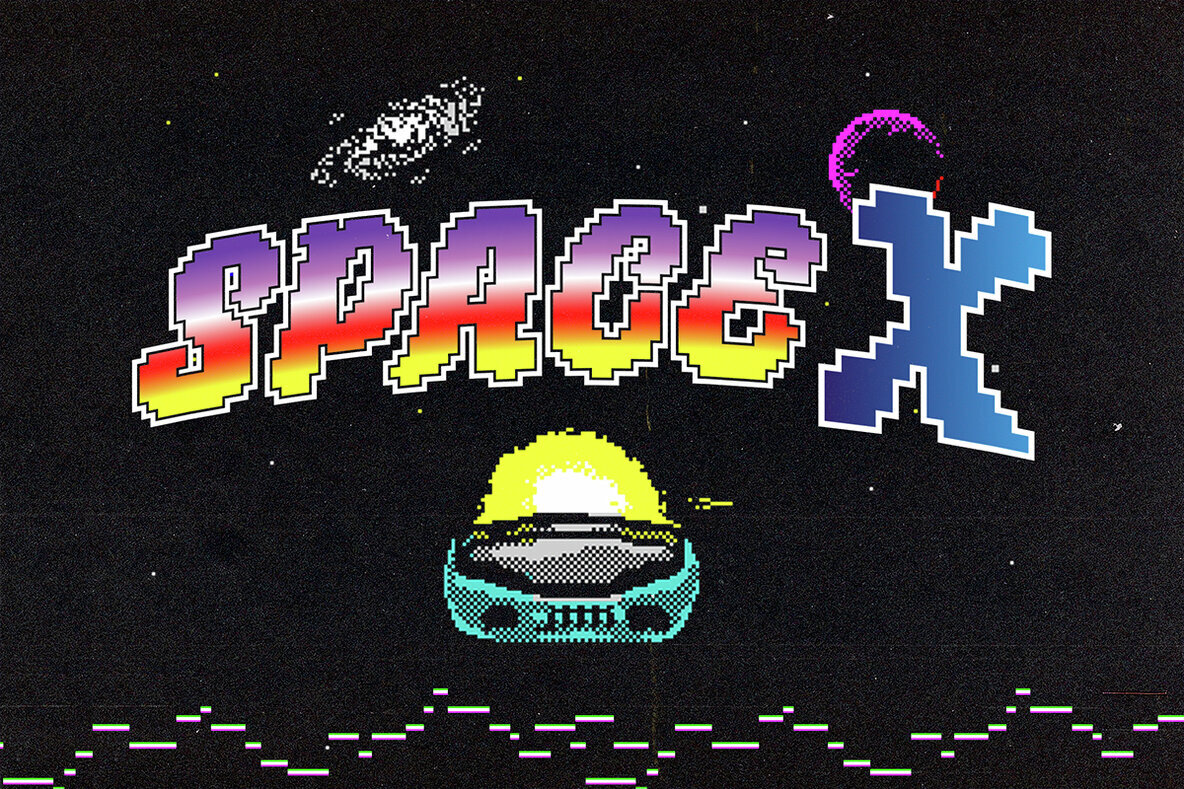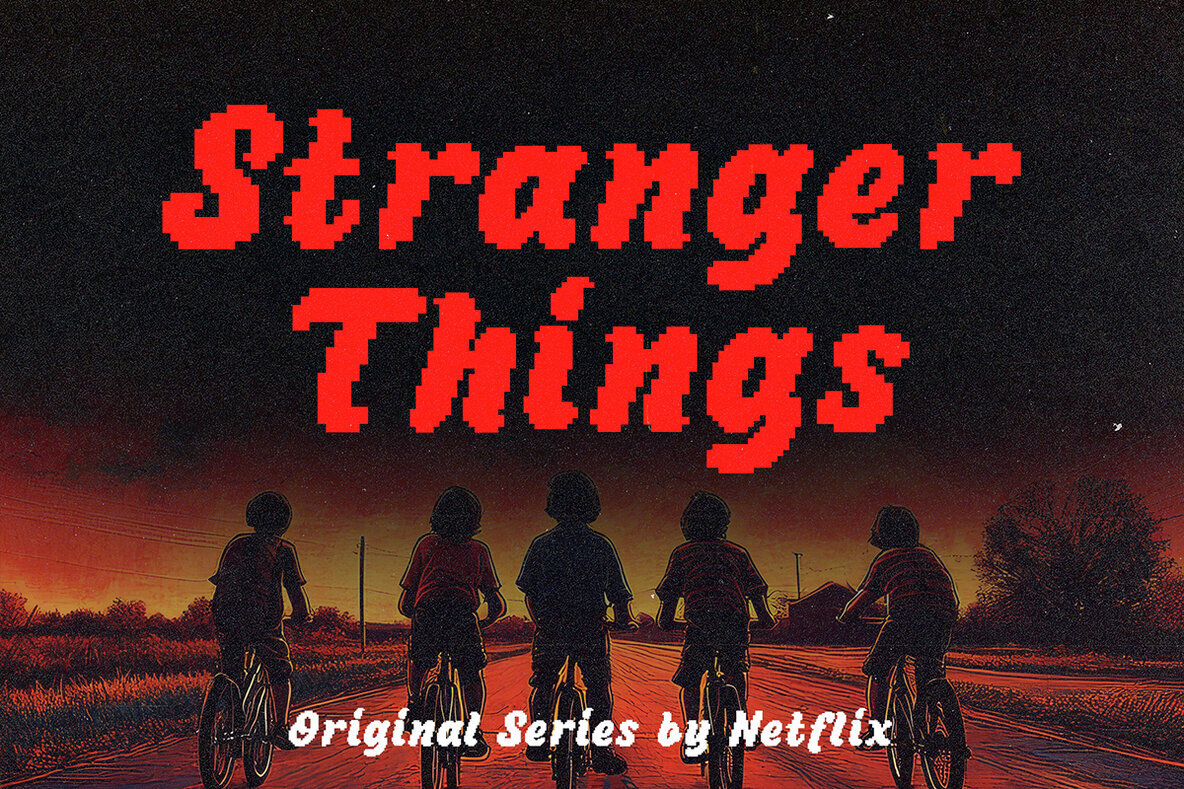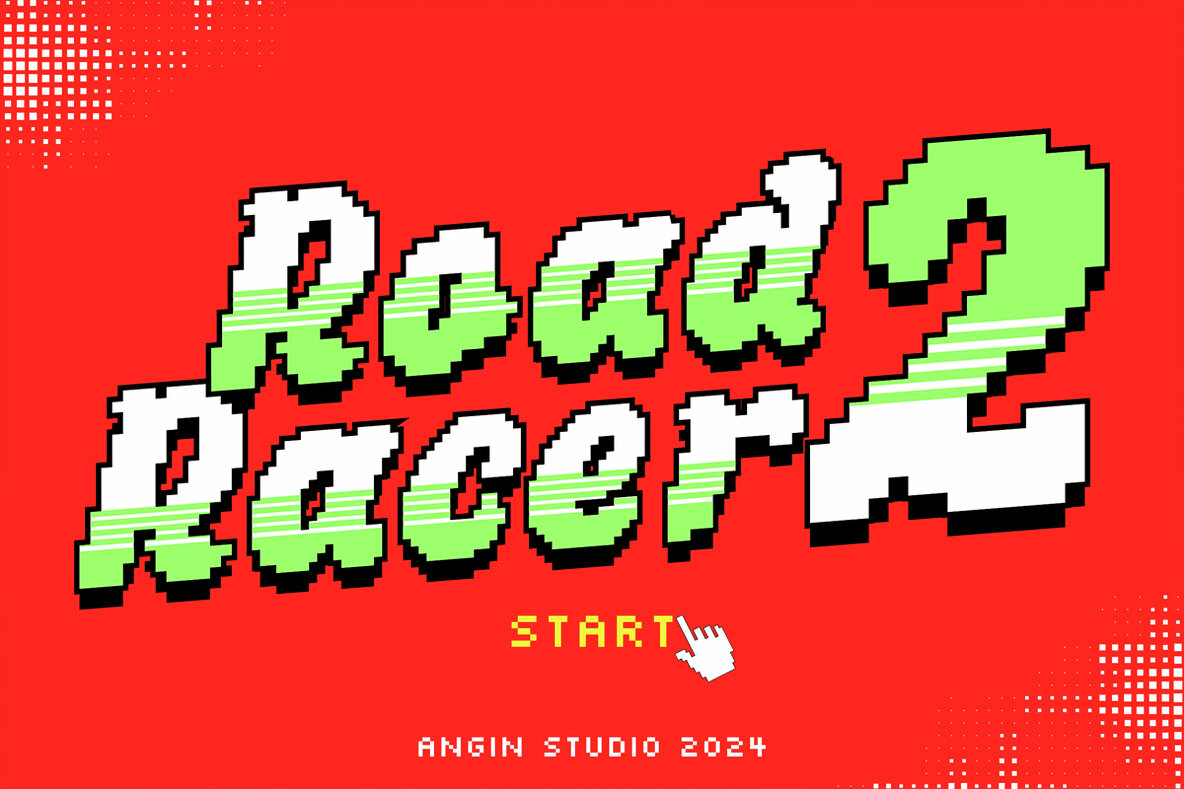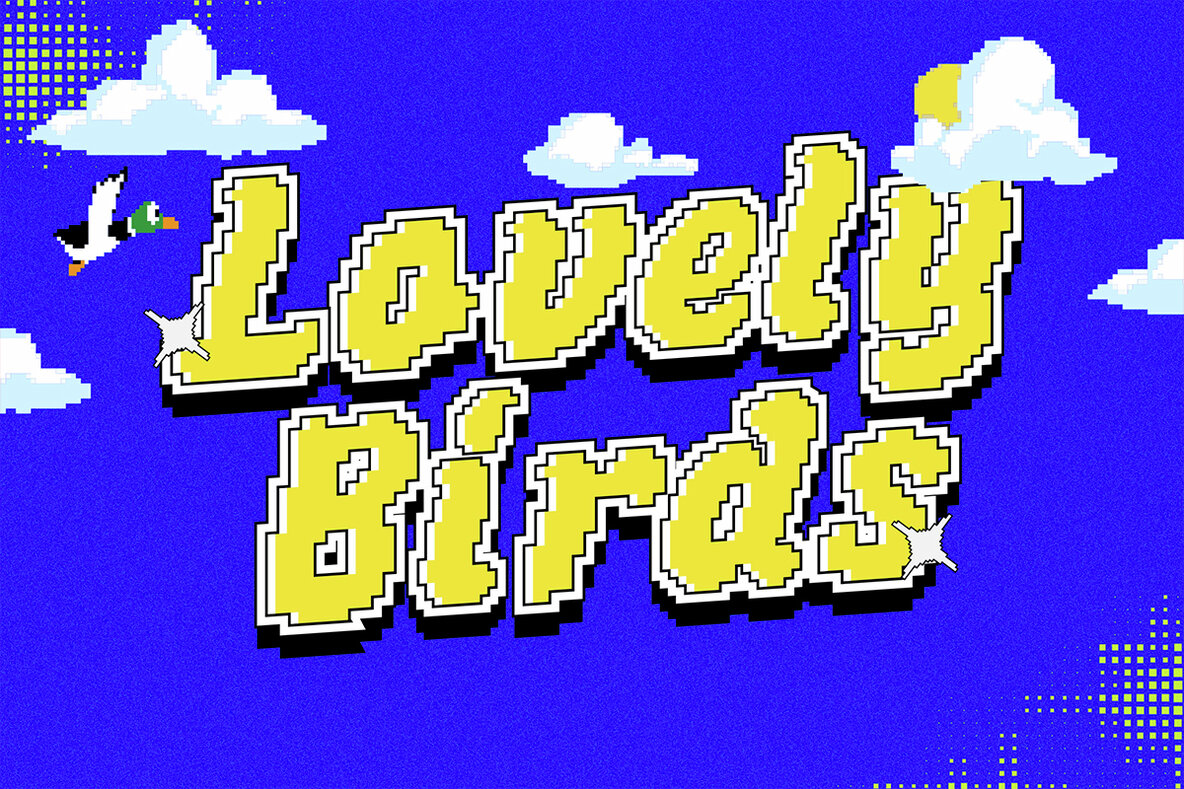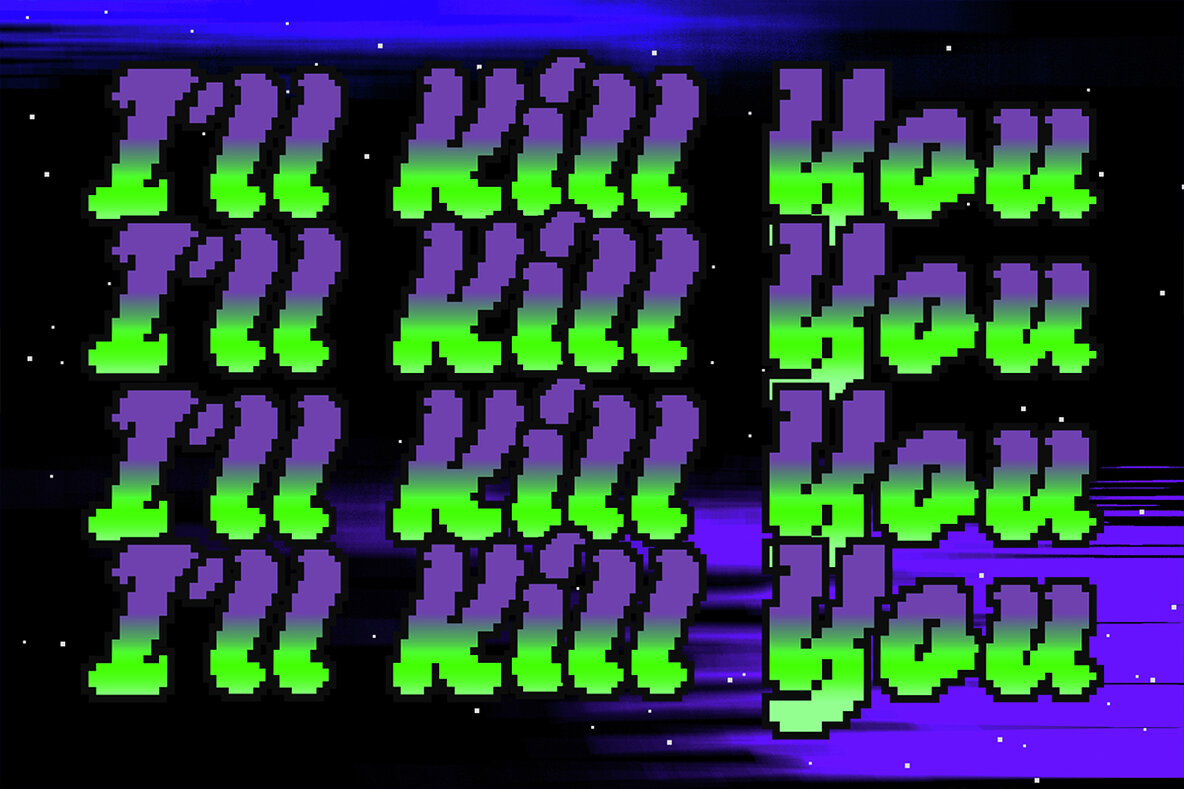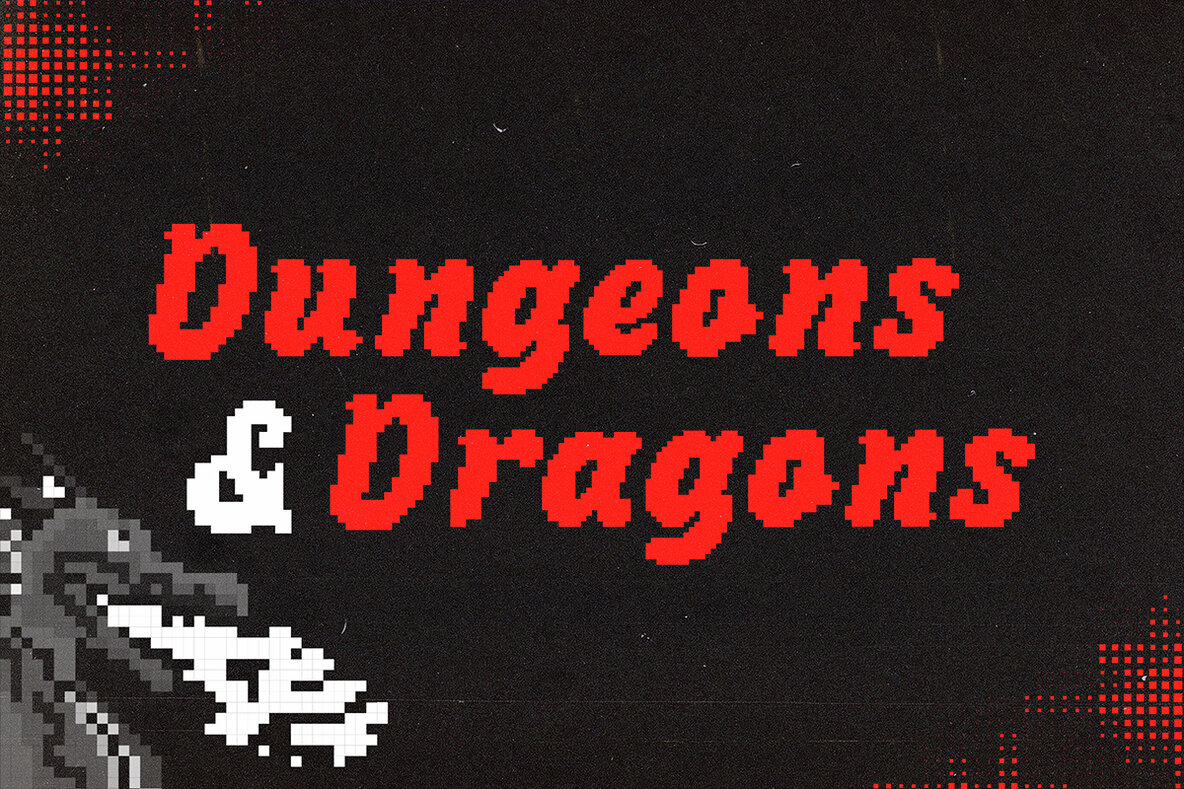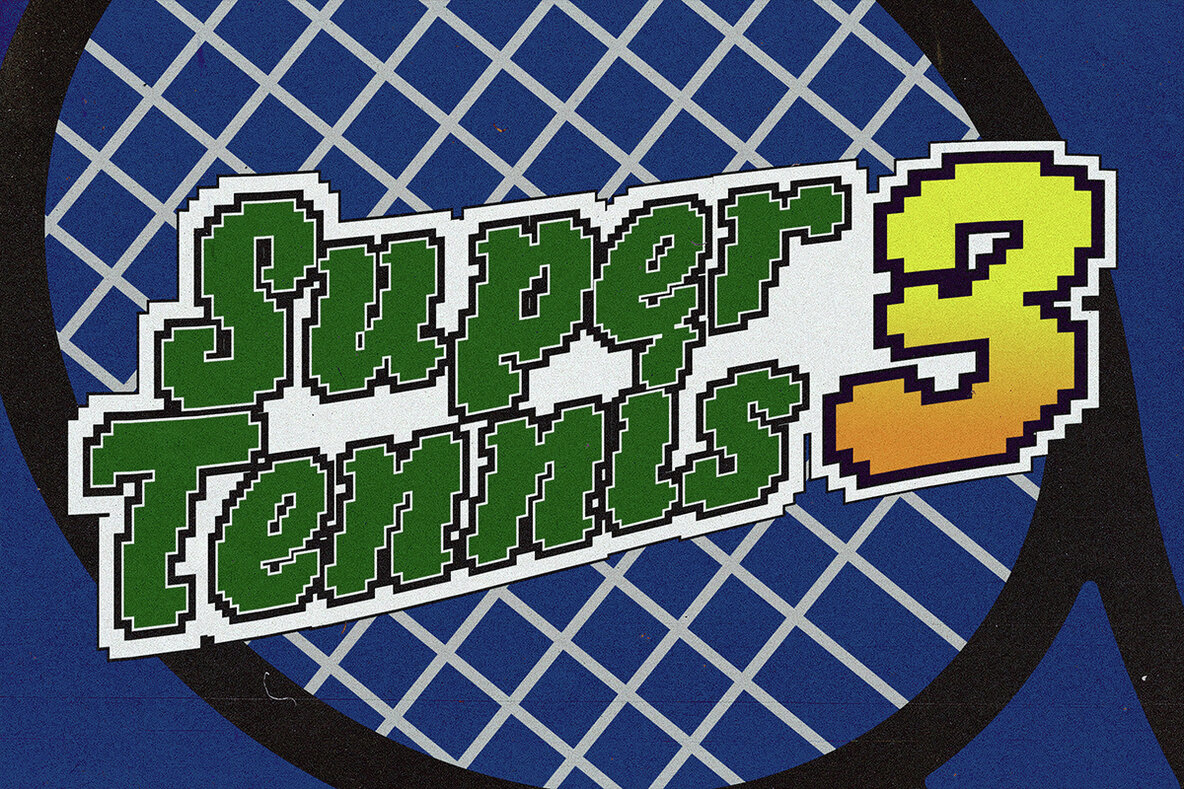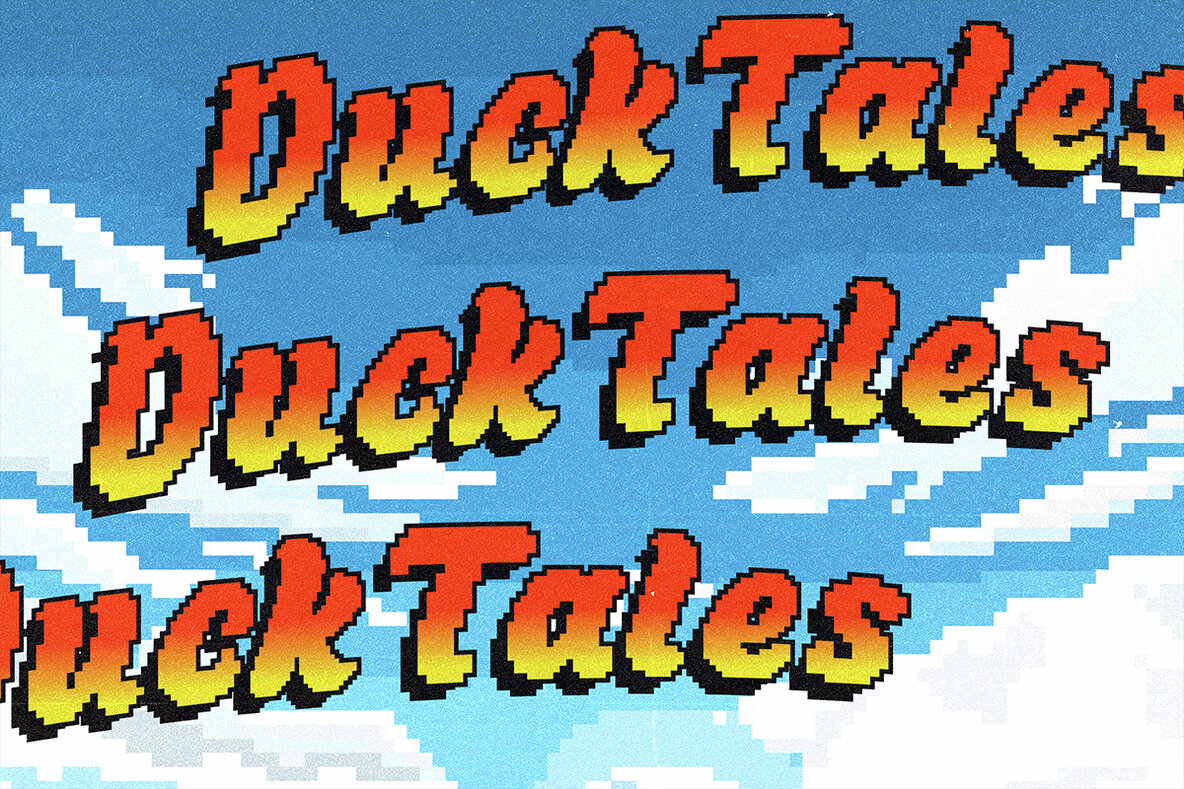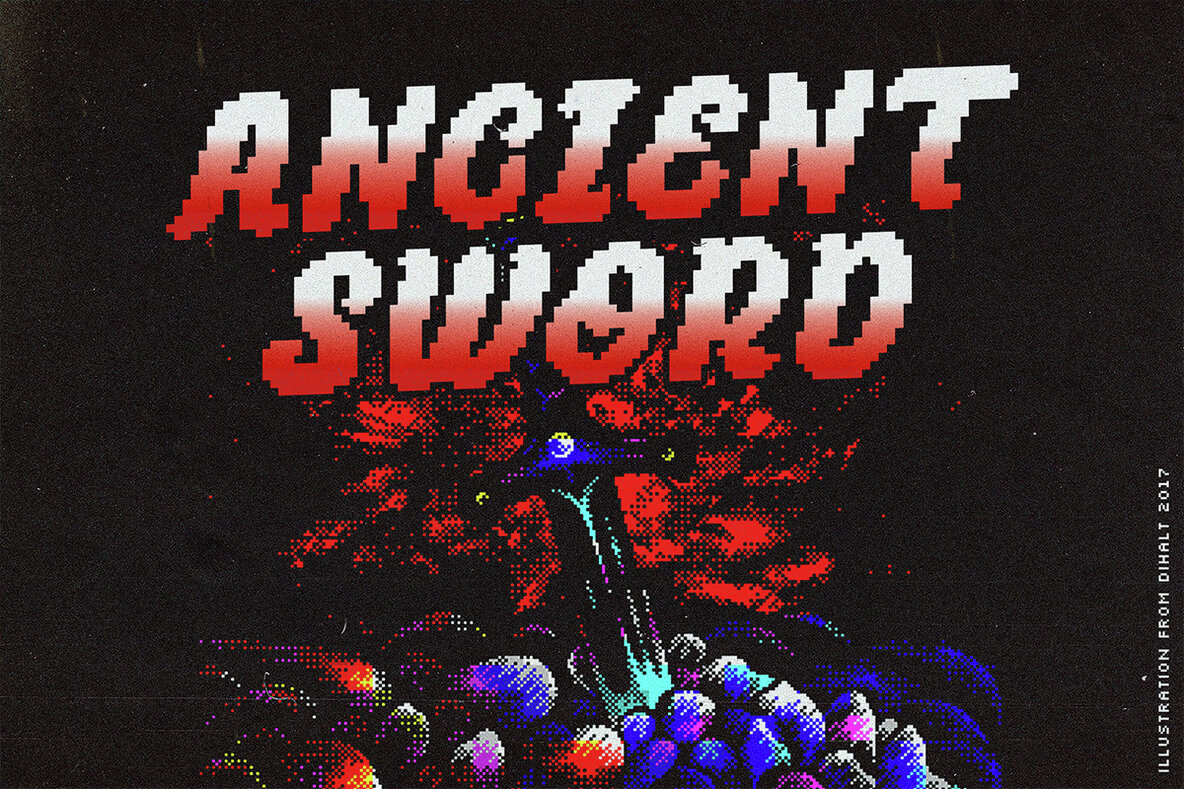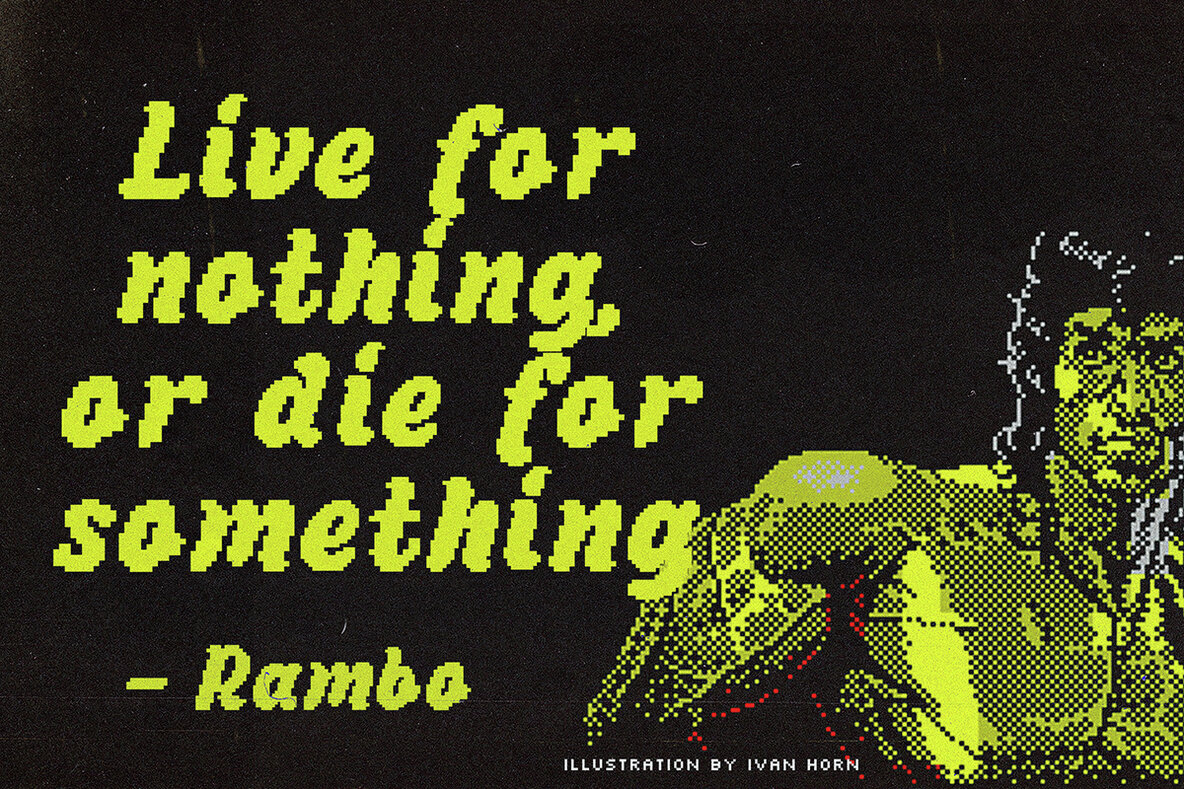
Ohleys Pixelated
Ohleys Pixelated captures the vibrant essence of 8-bit and retro gaming nostalgia. This bold and playful pixelated display font is ideal for projects that require a touch of retro charm, making it perfect for gaming designs, eye-catching posters, and other creative visuals.
Its striking pixel art style brings a fresh and lively look, ensuring that each piece stands out with its unique character. Add a dynamic and colorful twist to your projects with Ohleys Pixelated and transport your audience straight back to the golden era of pixel perfection.